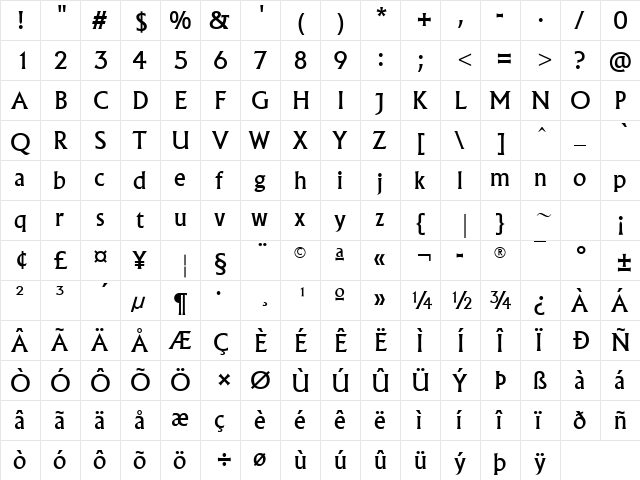
Albertville Regular
Design Context for Albertville Typeface
Albertville takes a measured approach to typography — its balanced proportions and neutral character make it a reliable workhorse for both digital and print work.